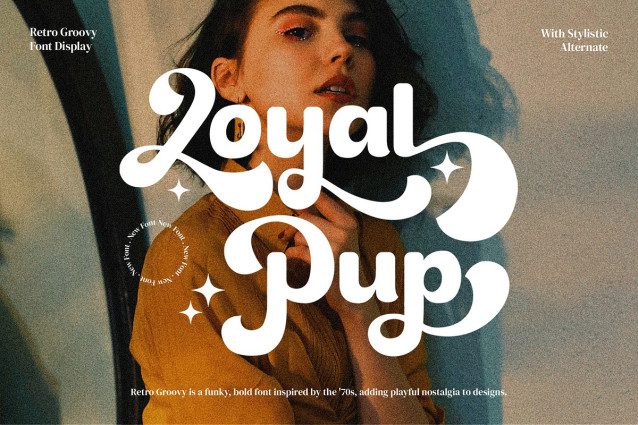
Loyal Pup Font
Loyal Pup Font is a funky, bold, and playful retro font inspired by the groovy vibes of the 70s. Its bubbly curves and flowing swashes bring warmth and nostalgia to any design, making it perfect for branding, posters, packaging, or fashion statements. With stylistic alternates and smooth ligatures, this typeface captures the carefree energy of the disco era — perfect for designers who love a touch of vintage fun.